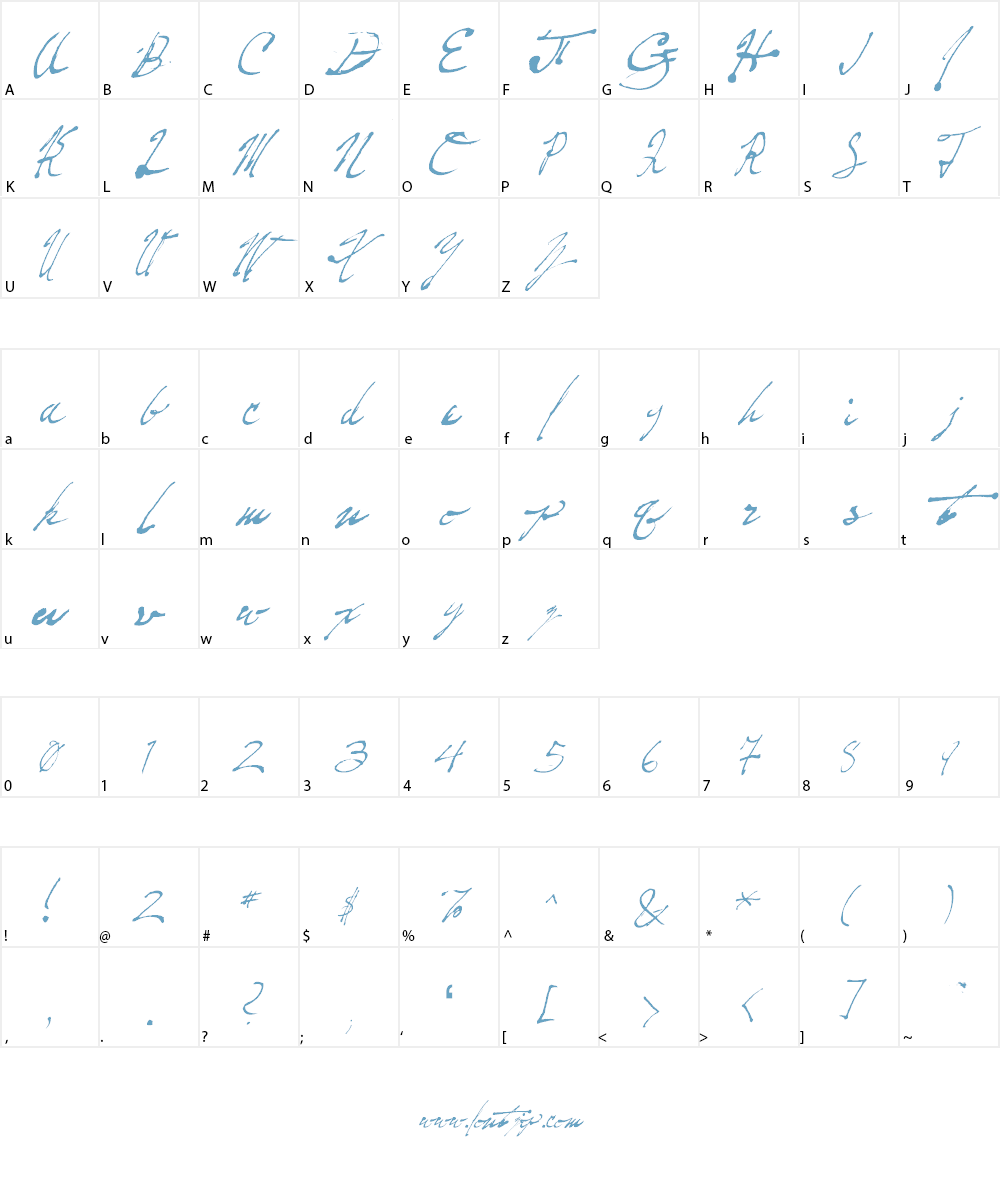
This font is based on handwritten characters written with an old fountain pen, which died as the font was completed. All keyboard characters are represented, and I was kind enough not to subject you to that wretched random rectangle for undefined characters. I played up on the pen's poor ink flow, so if it looks like a smudge or a blot, it probably is.